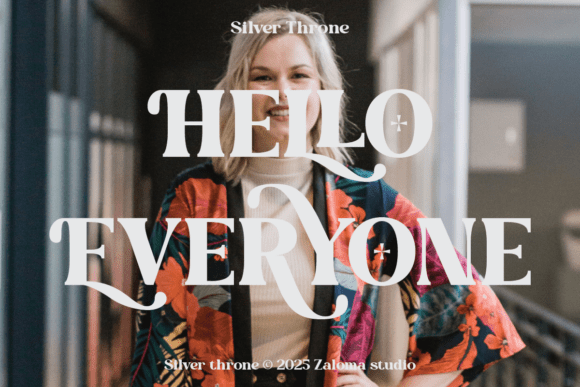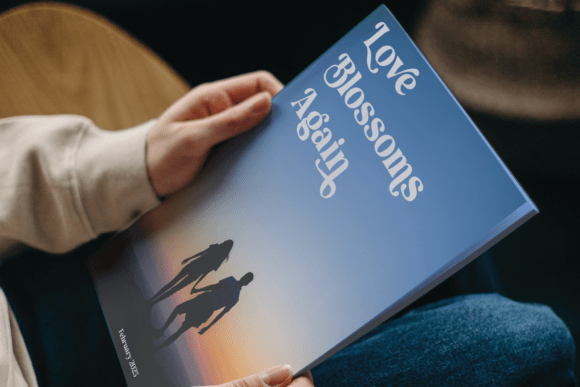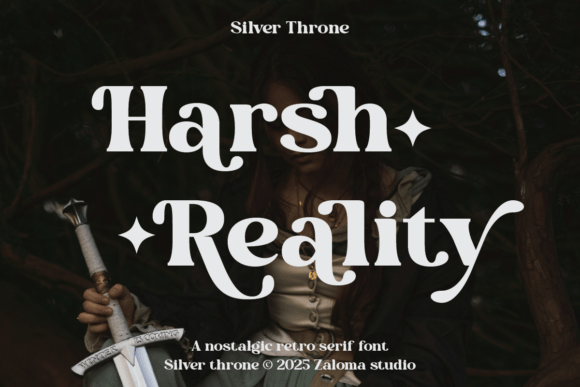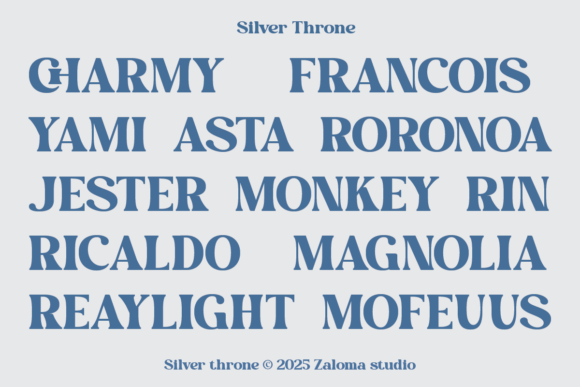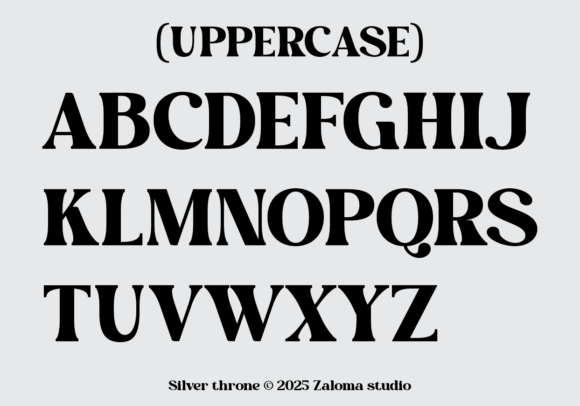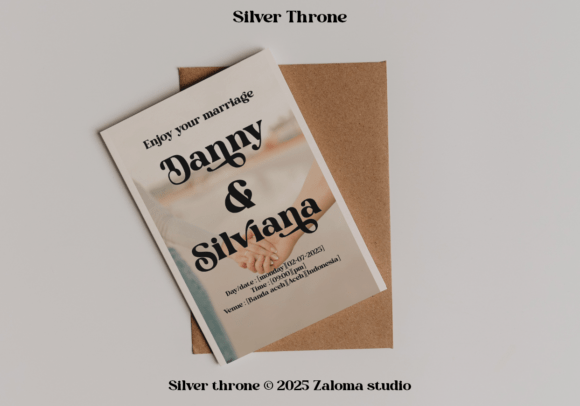
Introduction to Silver Throne Font
Silver Throne is a sophisticated retro serif font designed with a nostalgic and elegant touch.
This font features bold letterforms with distinctive artistic details, making it an excellent choice for branding, logos, posters, book covers, and other classic-themed designs The uppercase letters exhibit a strong and luxurious presence, perfect for creating a striking visual impact.
Key Features of Silver Throne Font
Why Choose Silver Throne Font?
Silver Throne Font offers exceptional quality and versatility, making it a valuable addition to your design toolkit. Whether you’re creating for personal projects or commercial use, Silver Throne Font delivers professional results.